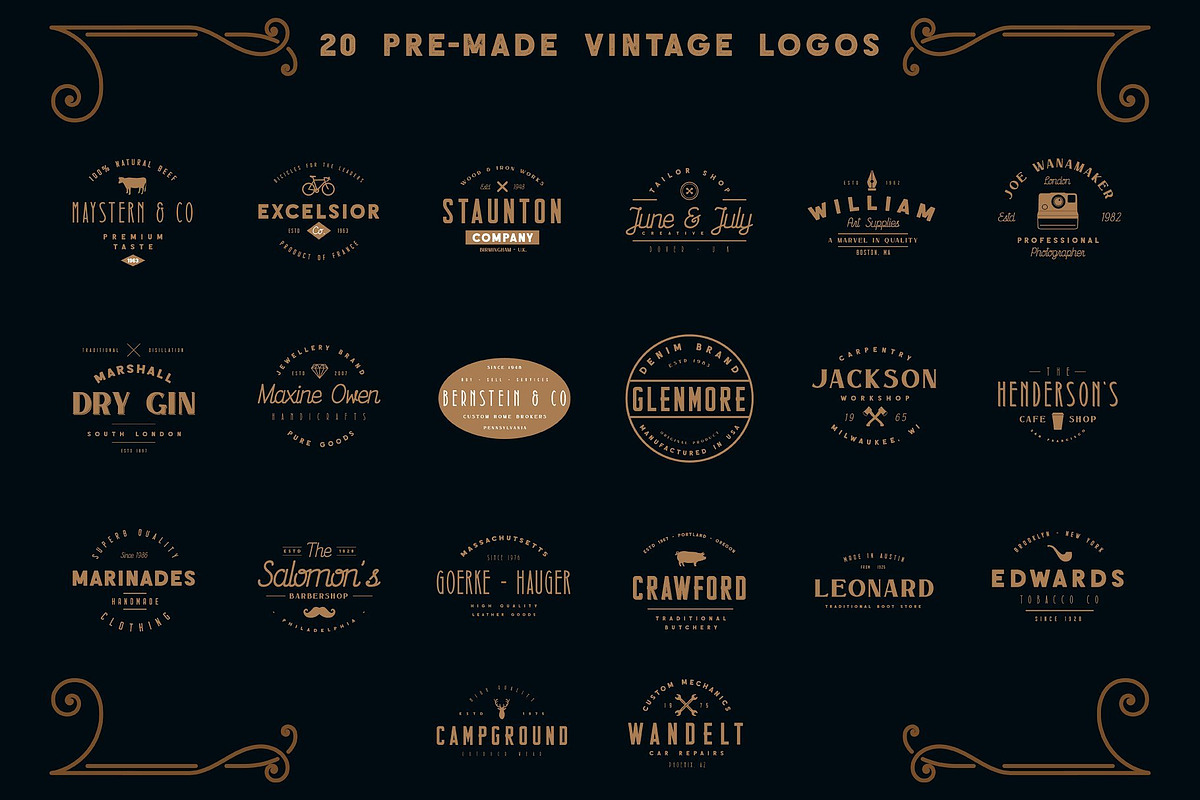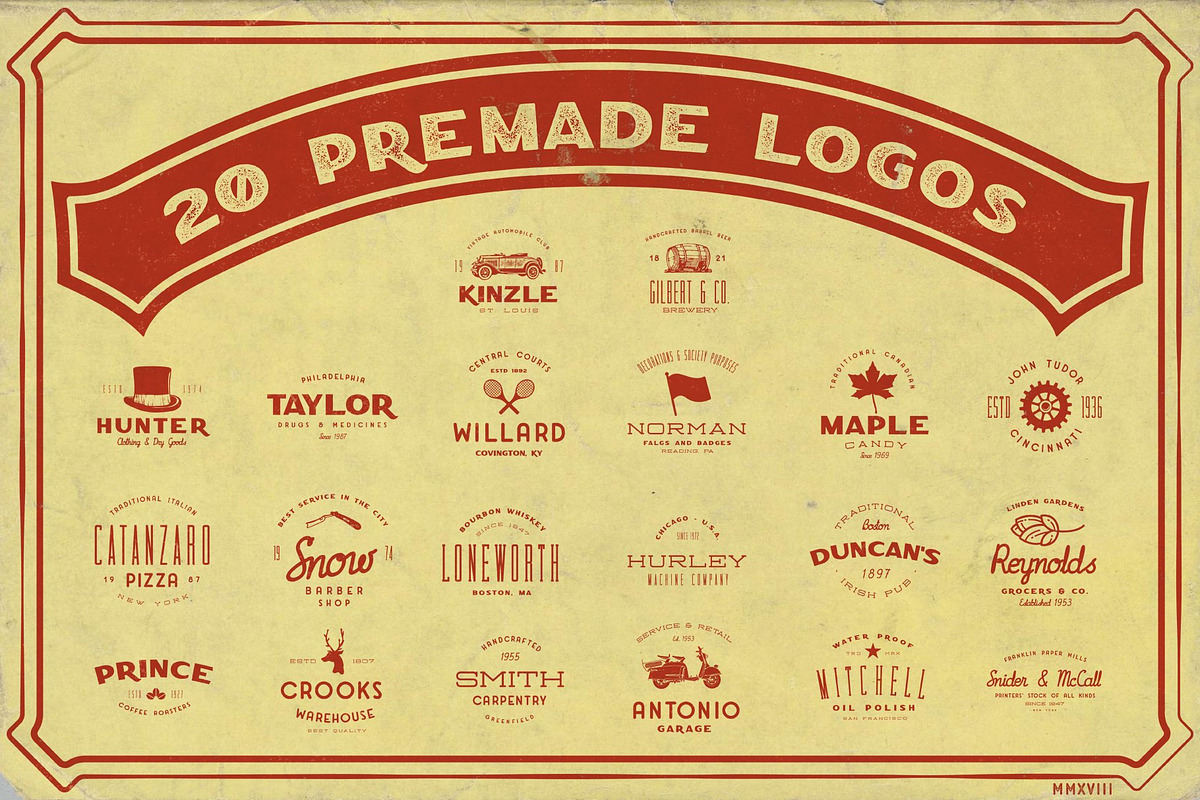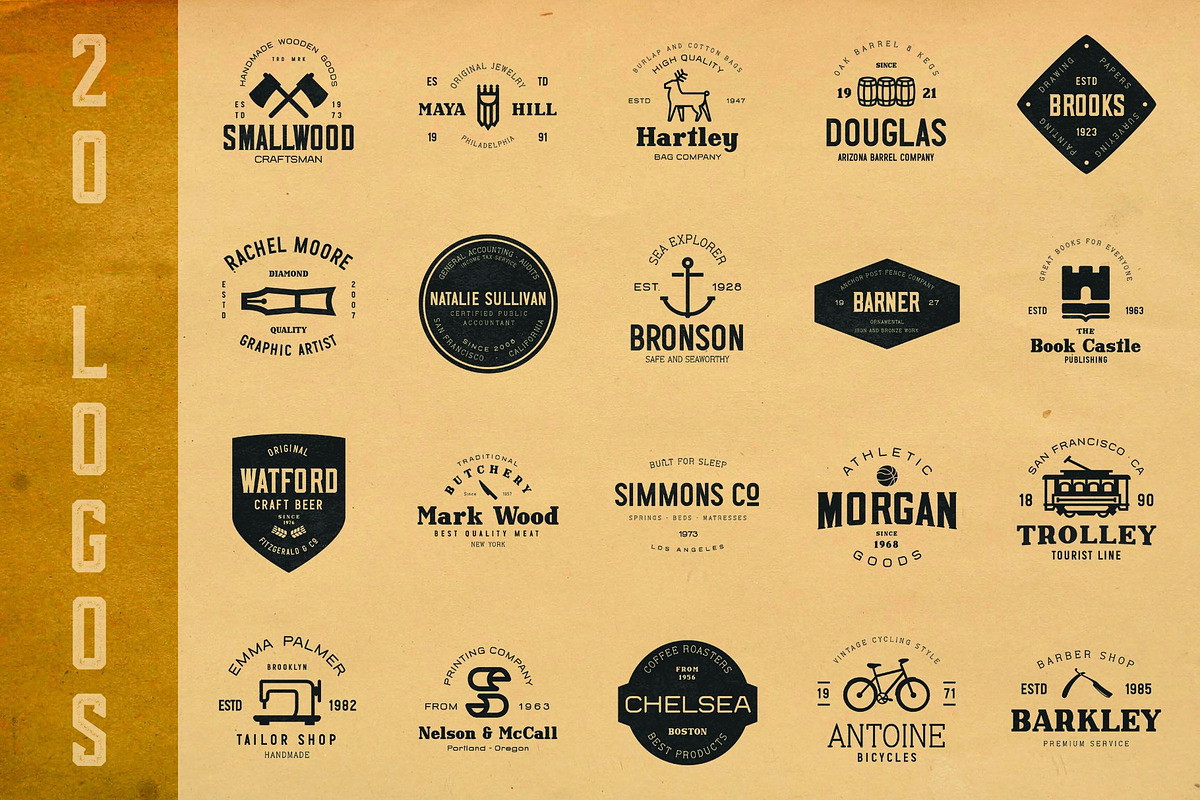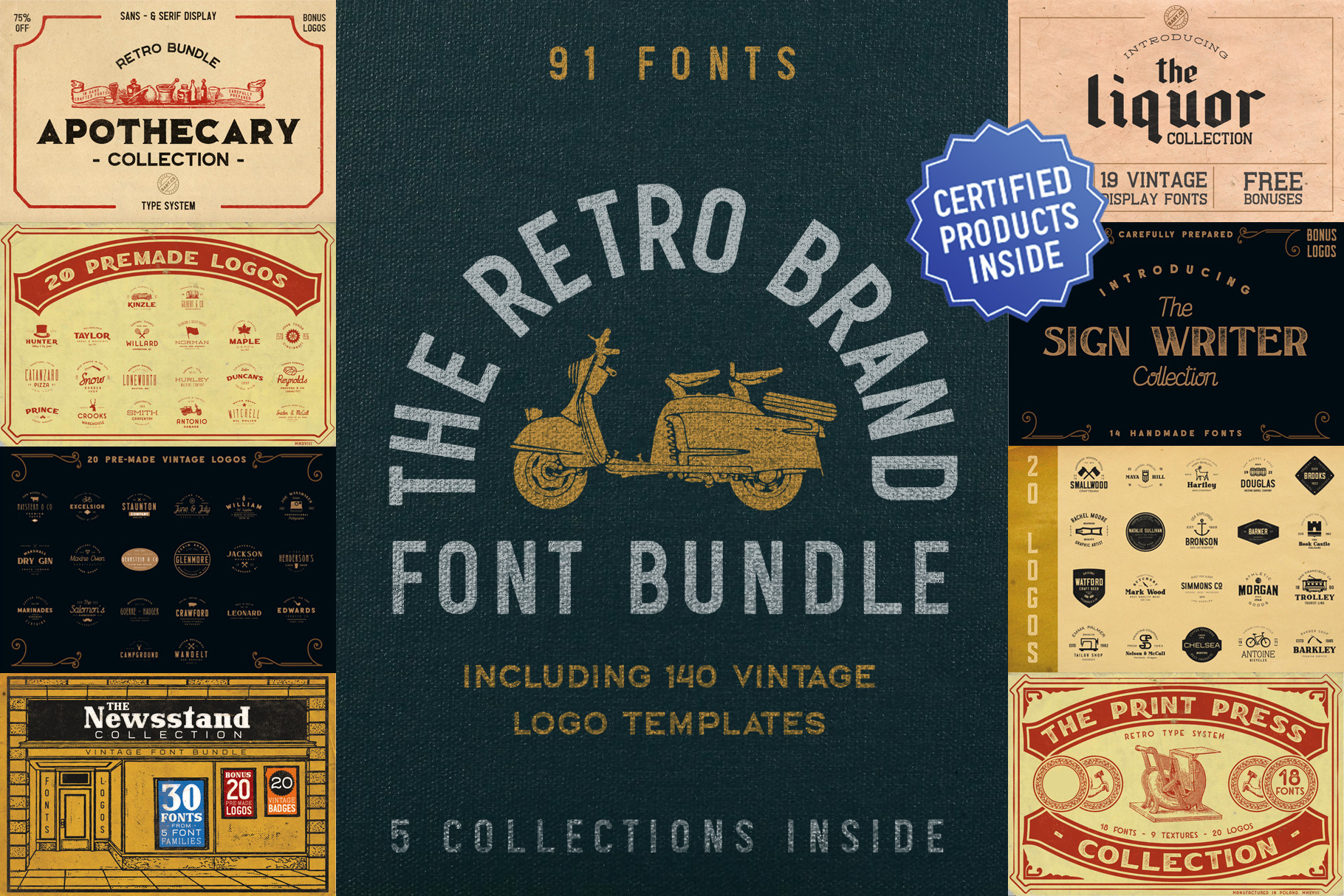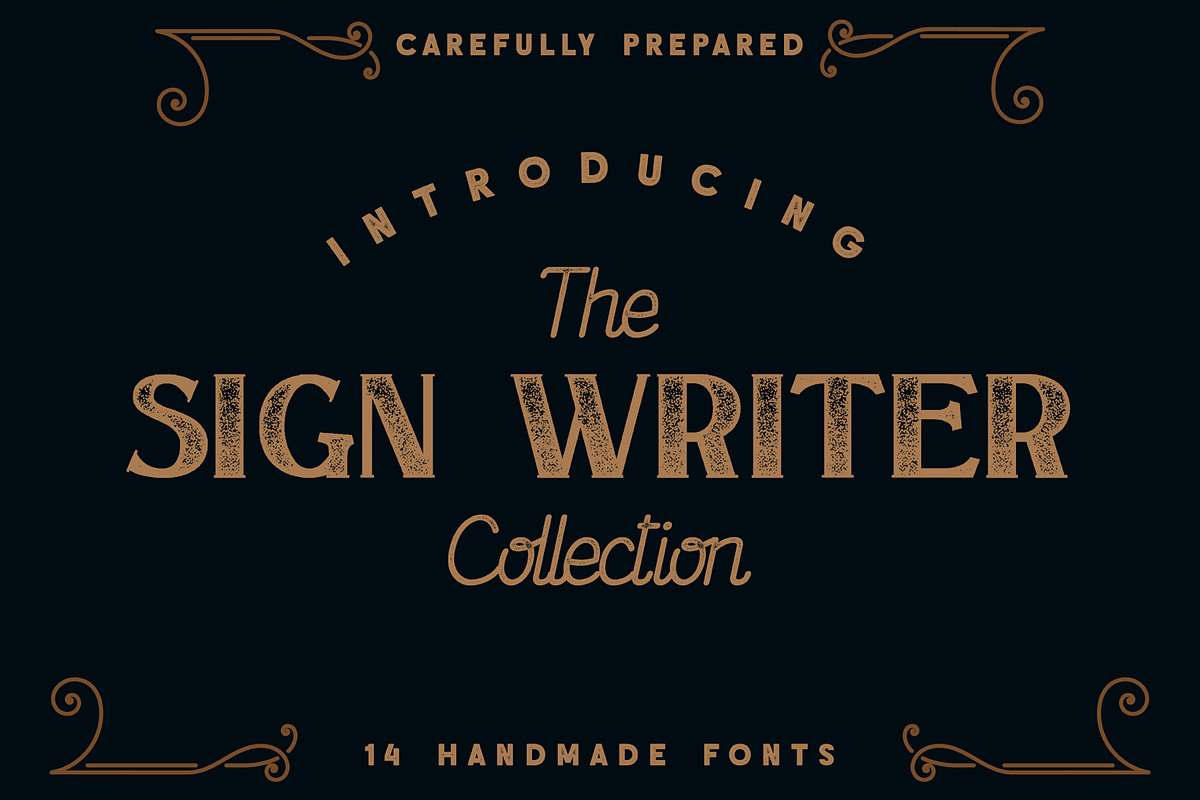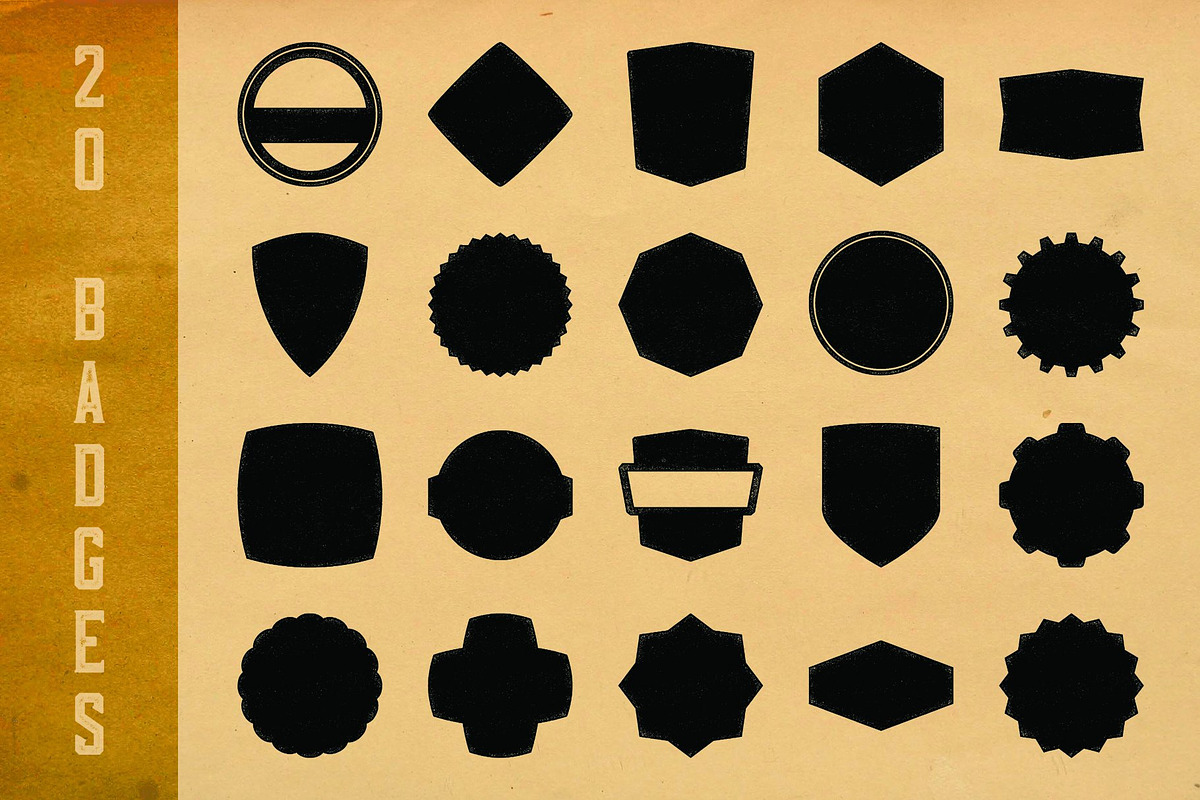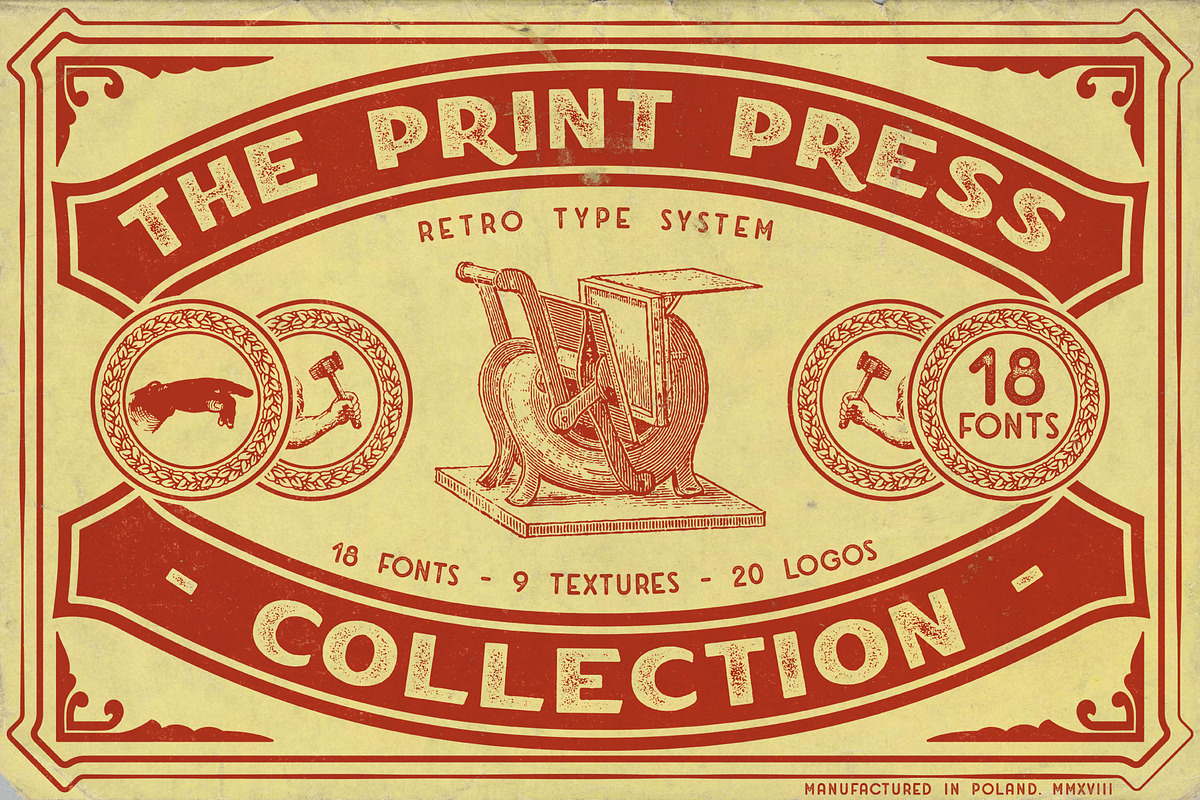
The Retro Brand Font Bundle
This pack includes all my 5 font collections I've ever created + 50 unique logo templates based on these fonts. The Retro Brand Font Bundle have a great selection of different font styles, you are sure to find what you need. This pack is perfect for vintage branding designs and other retro style projects!
5 Collections included:
In all collections you can find awesome bonuses like: logo templates, badges and textures!!!
In this bundle exclusive bonus is a 50 vintage logo templates!
In general: 91 fonts + 140 logo templates + some other stuff!!!